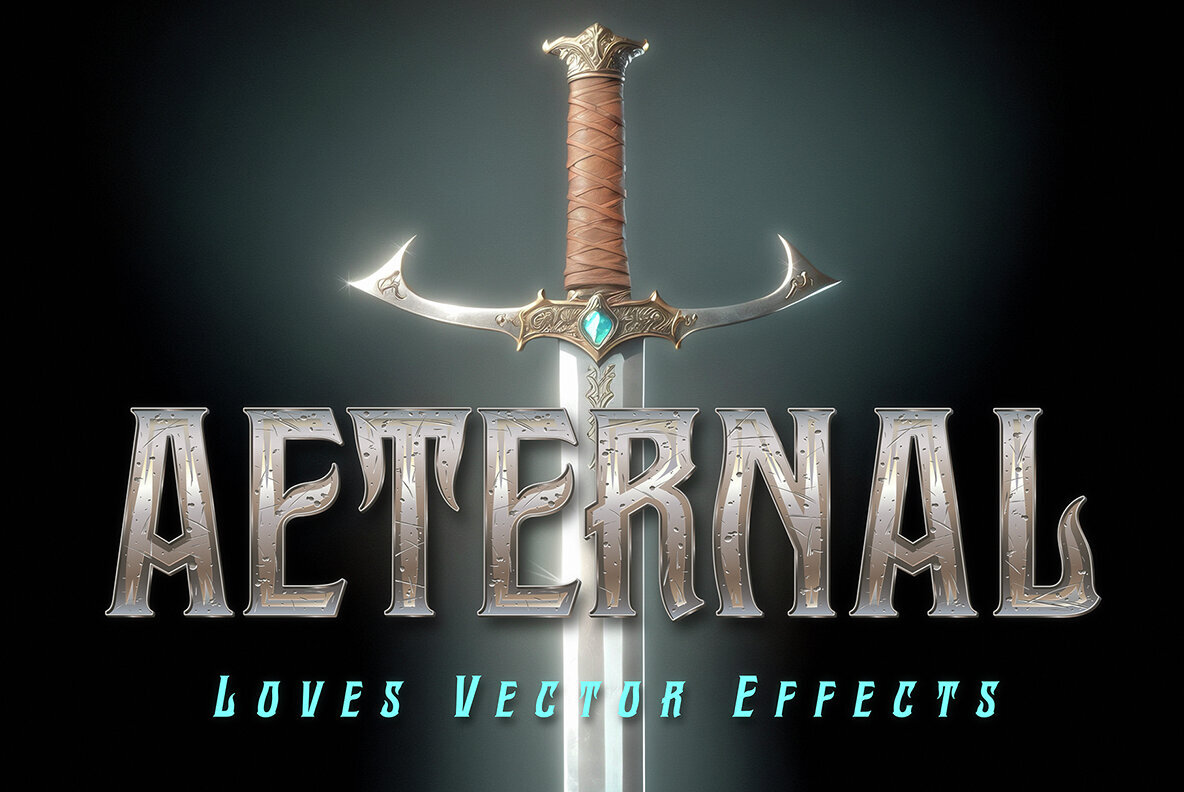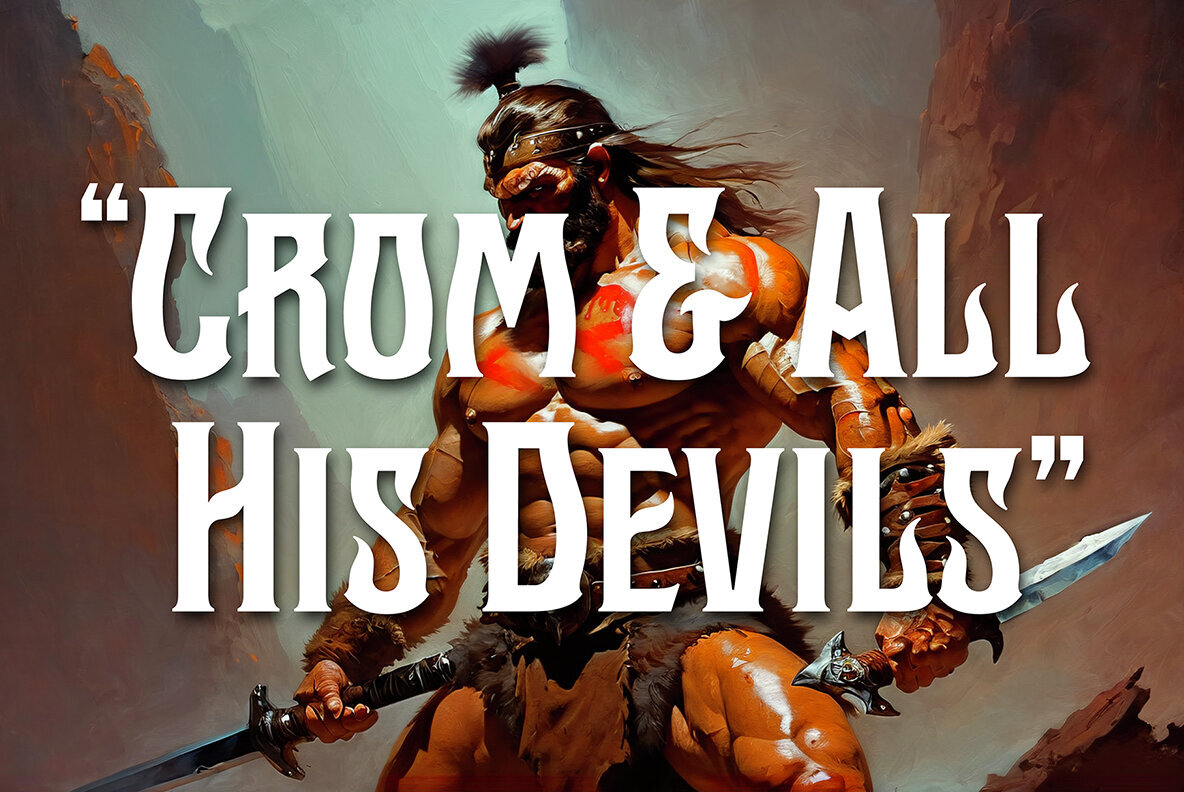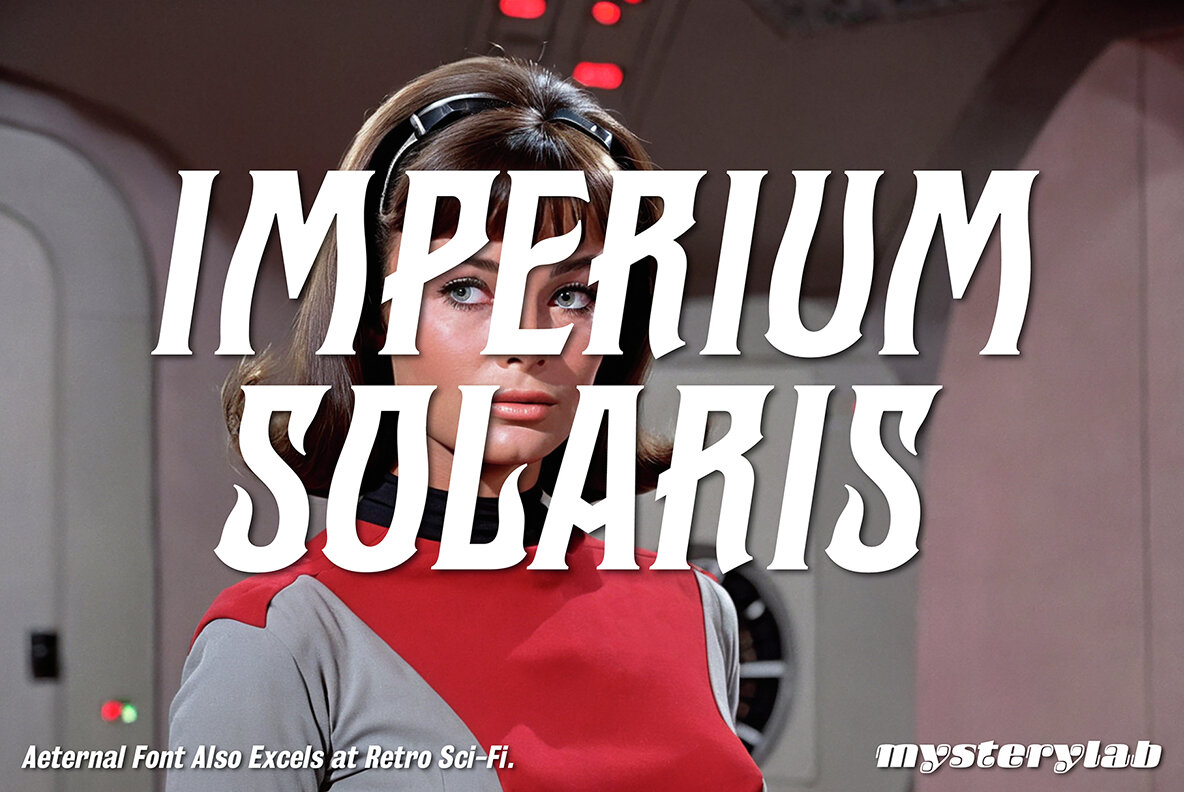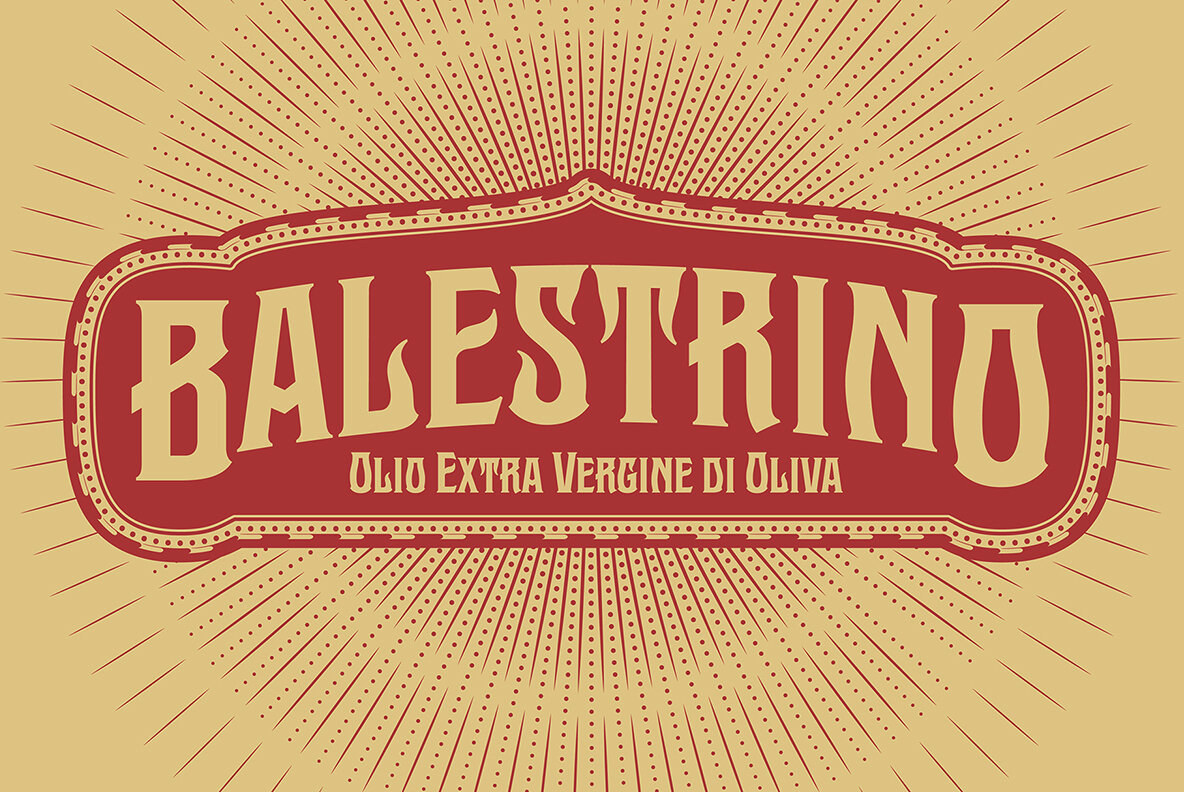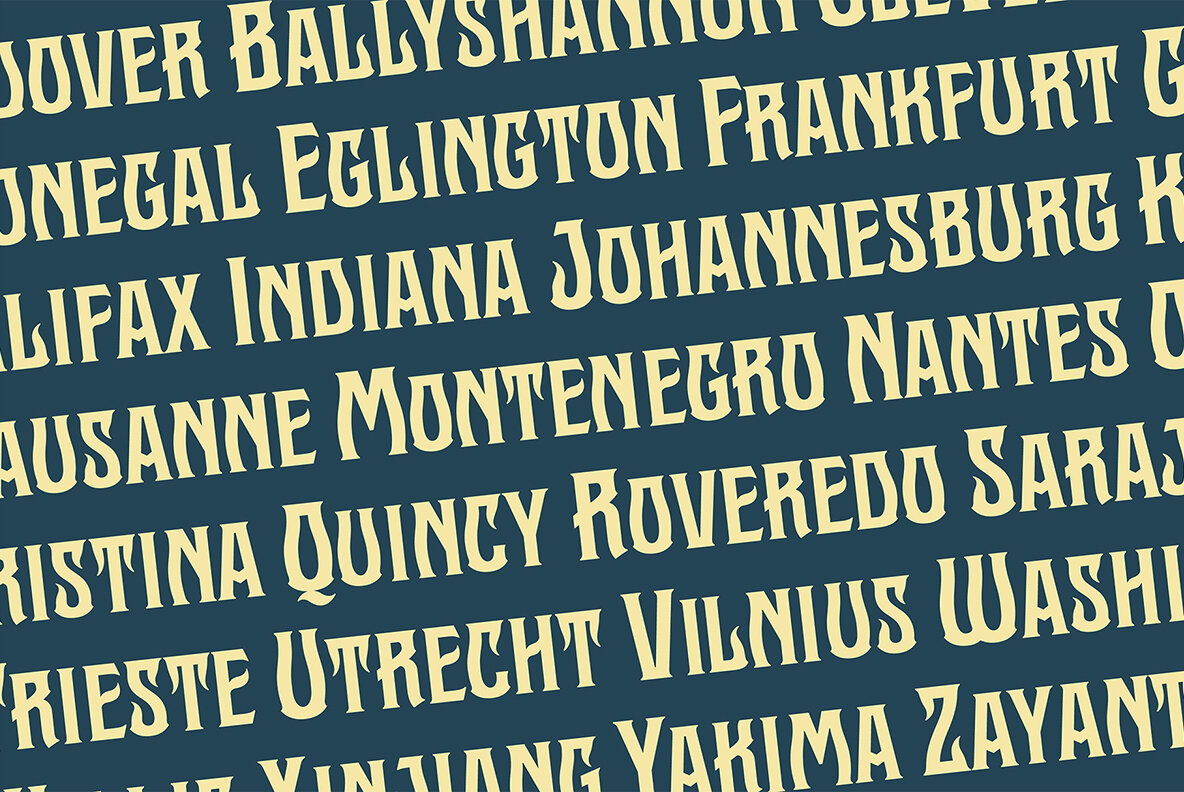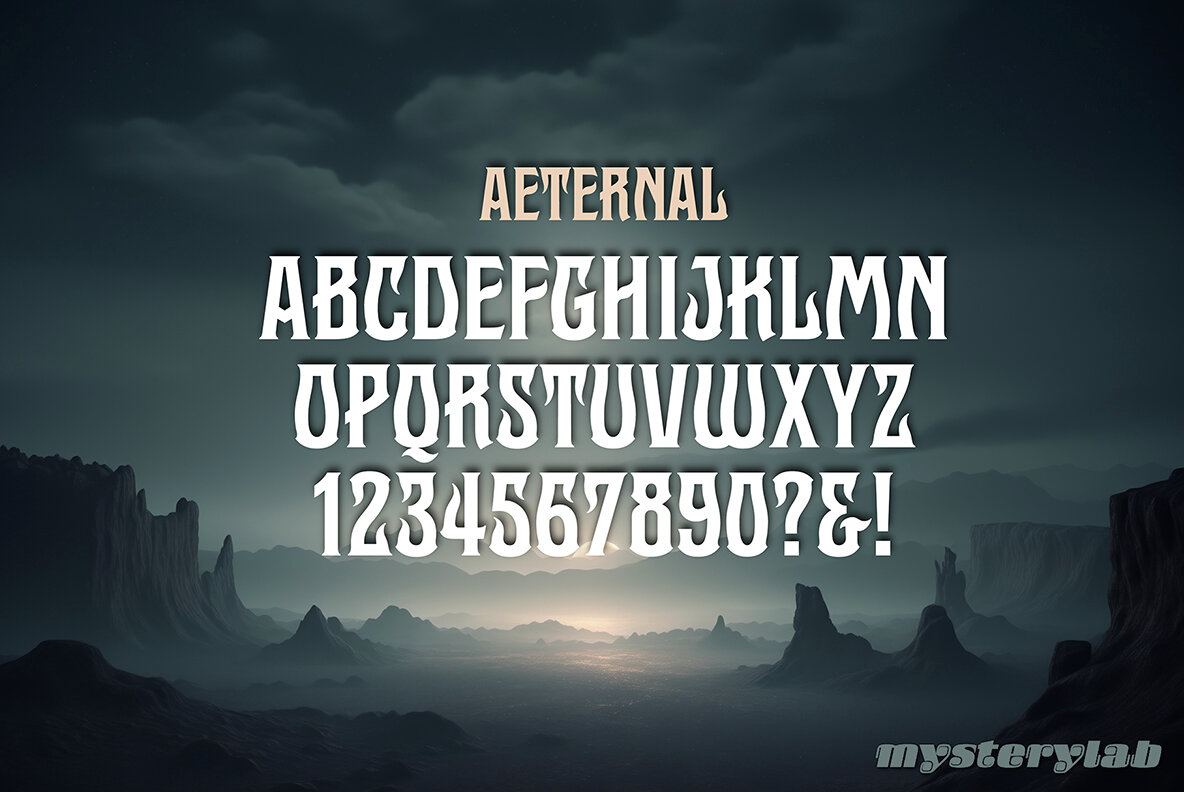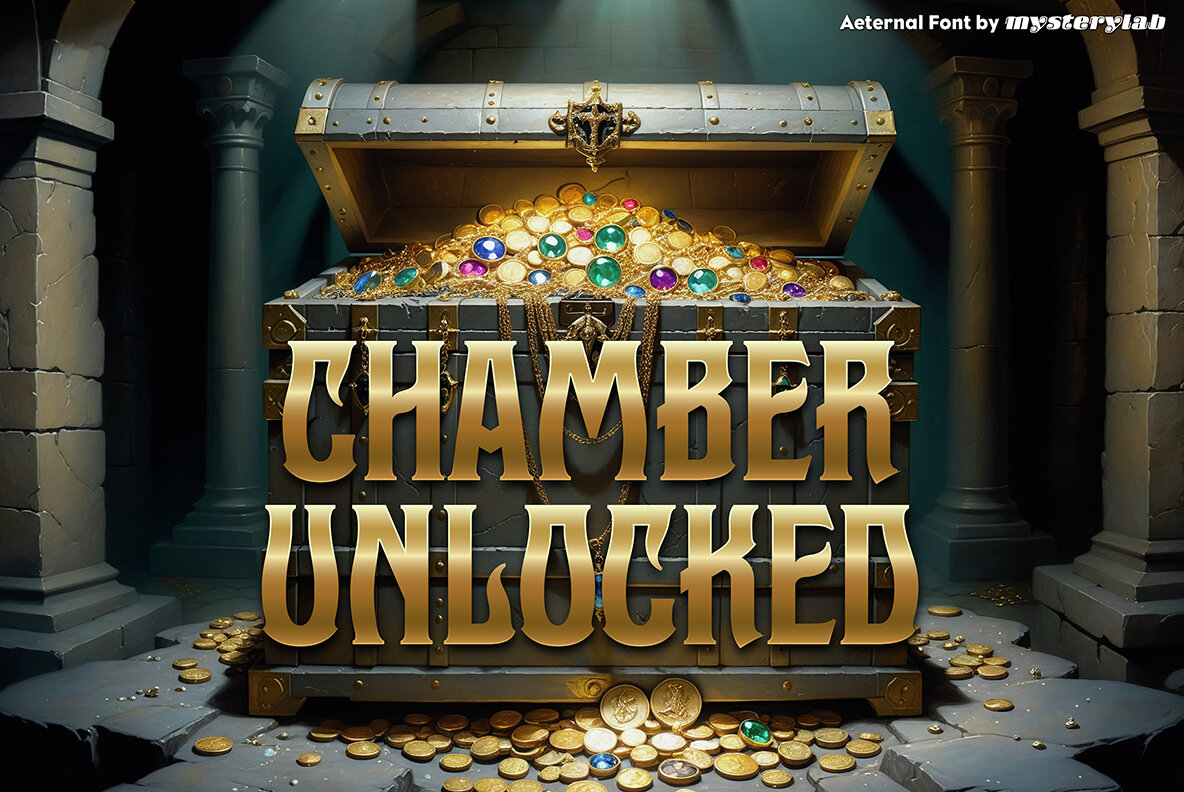
Aeternal Font
Aeternal is a condensed serif all caps + small caps design. It has a universal fantasy-genre vibe that can cover anything from game titles, movie titles, sci-fi TV shows with a familiar retro flair, to high-end logos, luxury fashion branding, specialty food packaging, and anything in between. It has a style all its own and a number of highly distinctive details that set it apart, all while retaining an authoritative and stately elegance and strength. An instant classic.